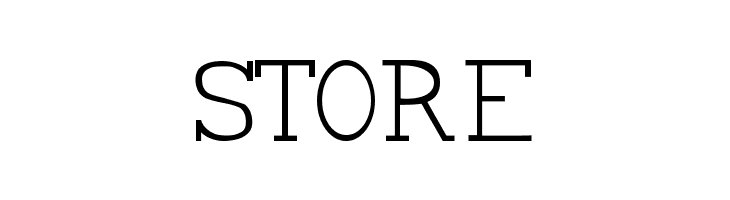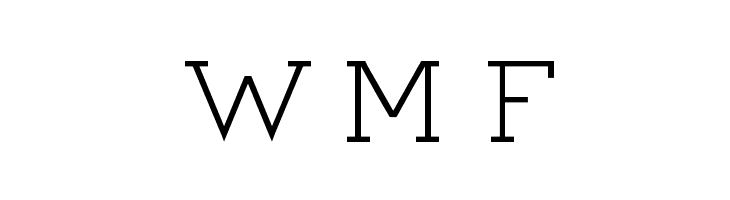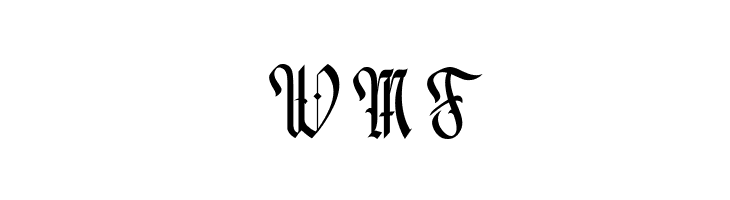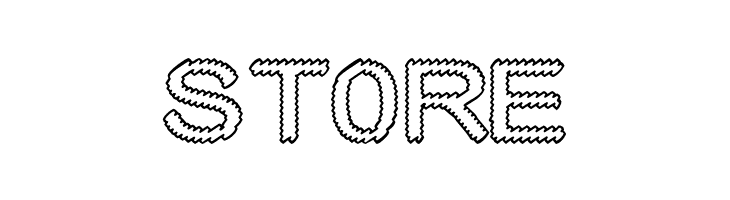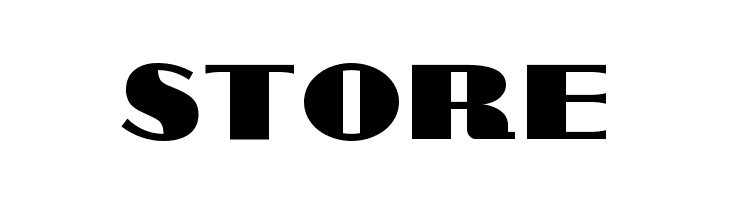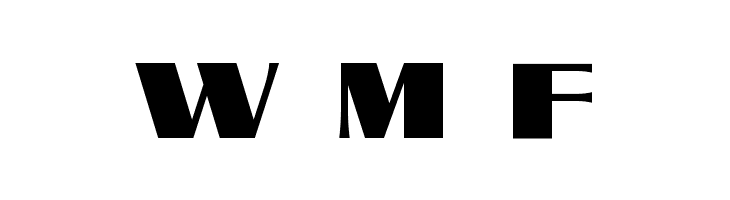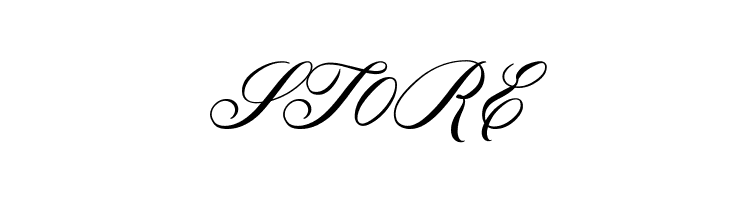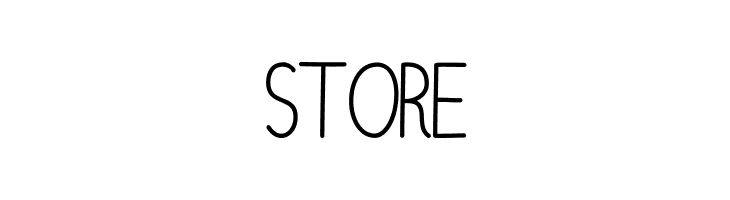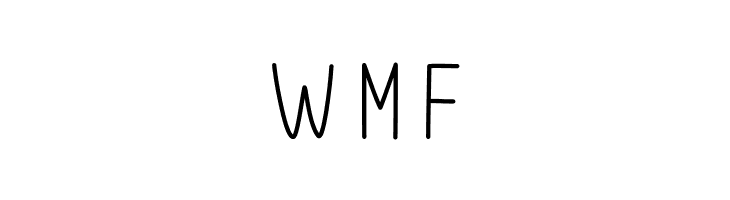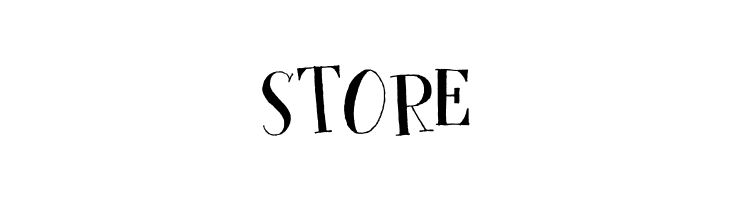
• Cydonia Regular
A bold, ornate Blackletter-style font with intricate, gothic details.
• Cydonia Regular
A classic blackletter font with ornate, angular designs and high contrast strokes.
• Cyen
A modern, geometric font with clean lines and consistent stroke width.
• Cygnet Regular
A sophisticated serif font with elegant curves and sharp serifs.
• Cykelsmed DEMO Regular
A playful, hand-drawn font with whimsical characters and unique symbols.
• Cyklop-Regular
• Cylburn
An elegant script font with flowing, cursive letterforms and intricate flourishes.
• Cylla
• Cylonic Crossdraft
A bold, zigzag-patterned font with a modern and dynamic style.
• Cylonic Empty
A decorative font with a hollow, zigzag outline for a bold, artistic look.